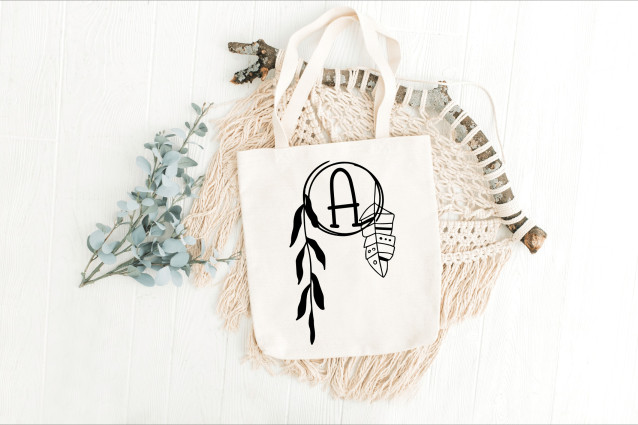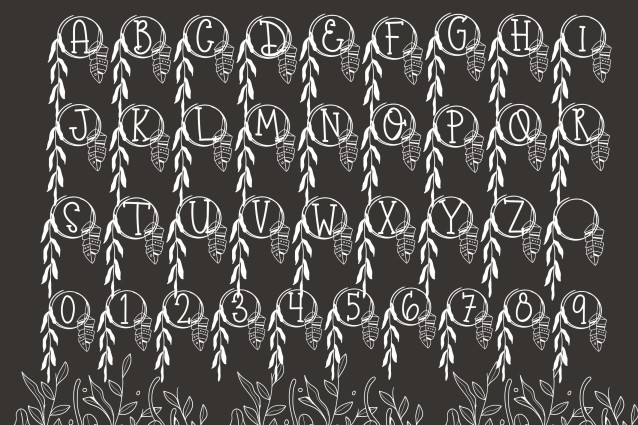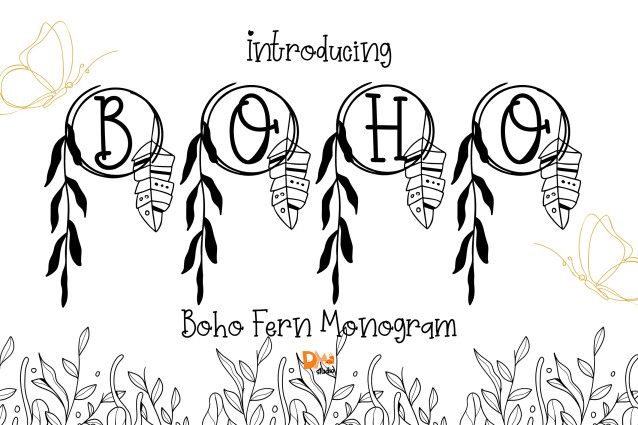
Boho Fern Monogram Font
Boho Fern Monogram Font is a beautifully balanced serif monogram font featuring graceful uppercase letters adorned with hand-drawn fern details. Rooted in earthy elegance and bohemian spirit, this typeface brings a natural charm to wedding stationery, Cricut projects, personalized branding, and seasonal packaging.